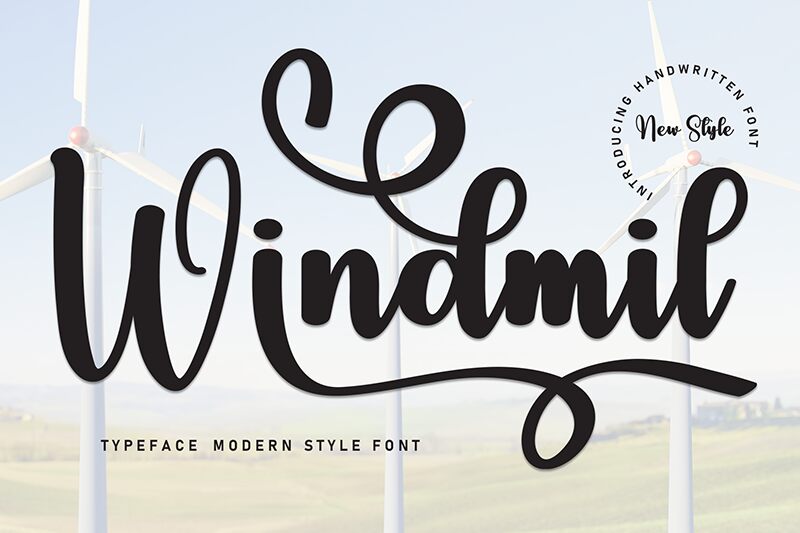
Windmil
Windmil font by Andi Moz is a modern script brush font with elegant curves and graceful lines. Expressive and flowing, this stylish font has a contemporary style that immediately captivates its viewers.